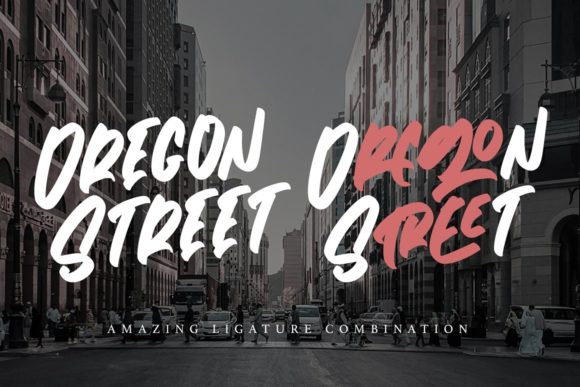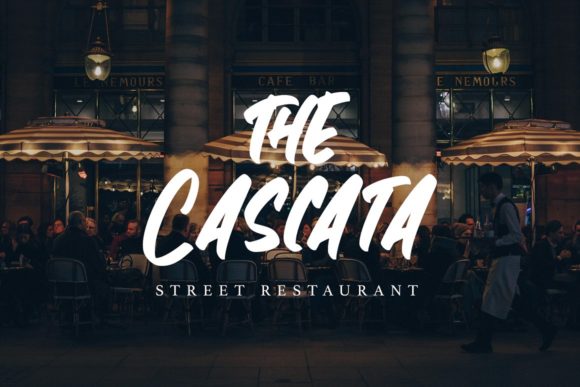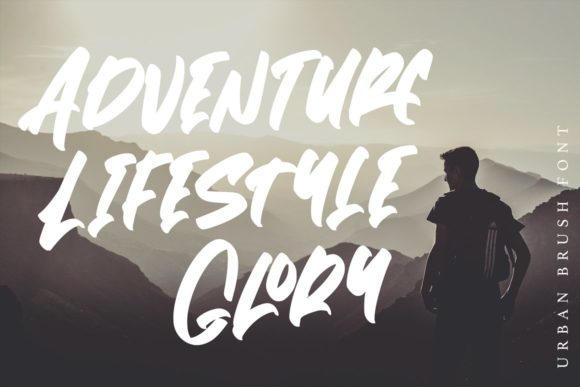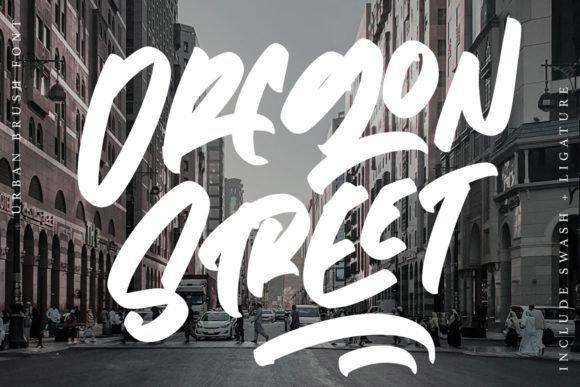
Introduction to Oregon Street Font
Oregon Street is a bold and thick lettered handwritten font.
It is defined by smooth curves and is perfect for fashion branding or editorial designs Add it confidently to your projects, and you won’t be disappointed.
Key Features of Oregon Street Font